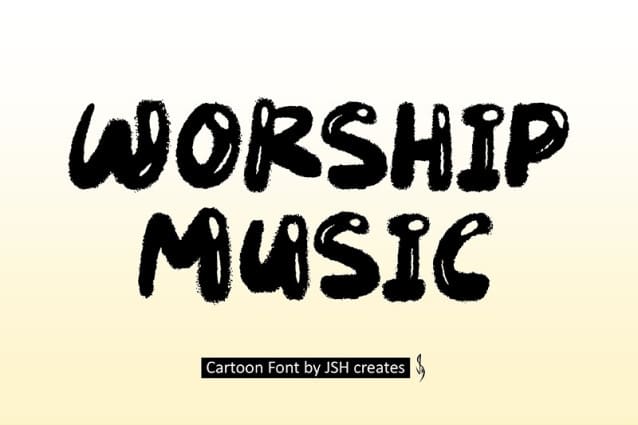
Worship Music Font
Worship Music Font, cool cartoon font. Perfect for advertising and display purposes, including banners, book covers, shirts, posters, logos and much more!